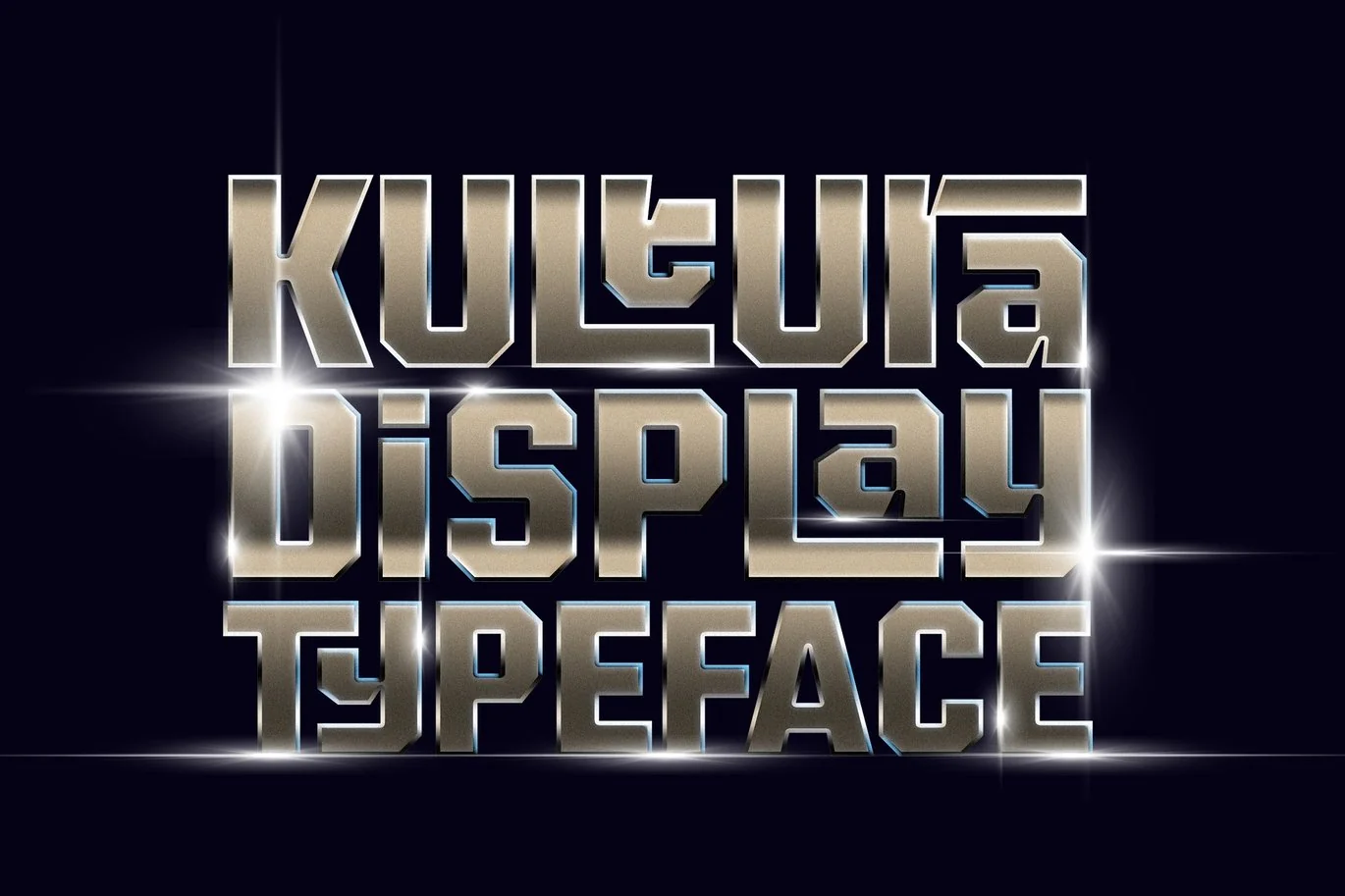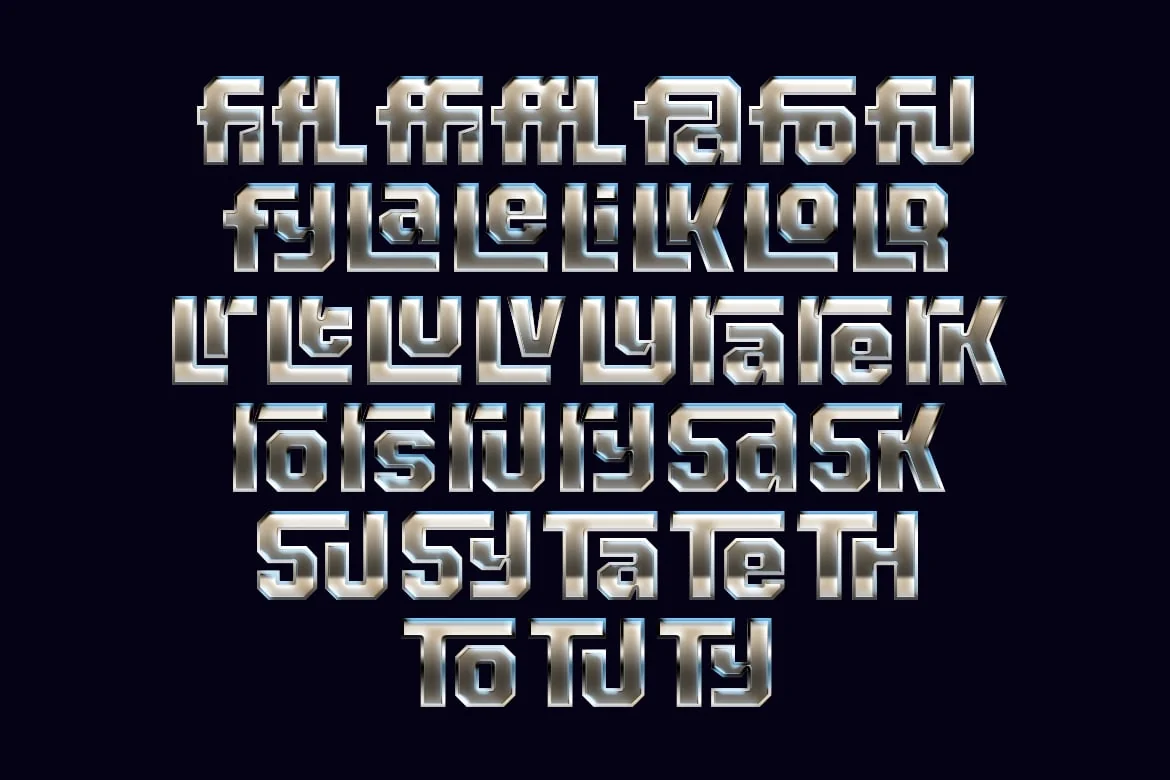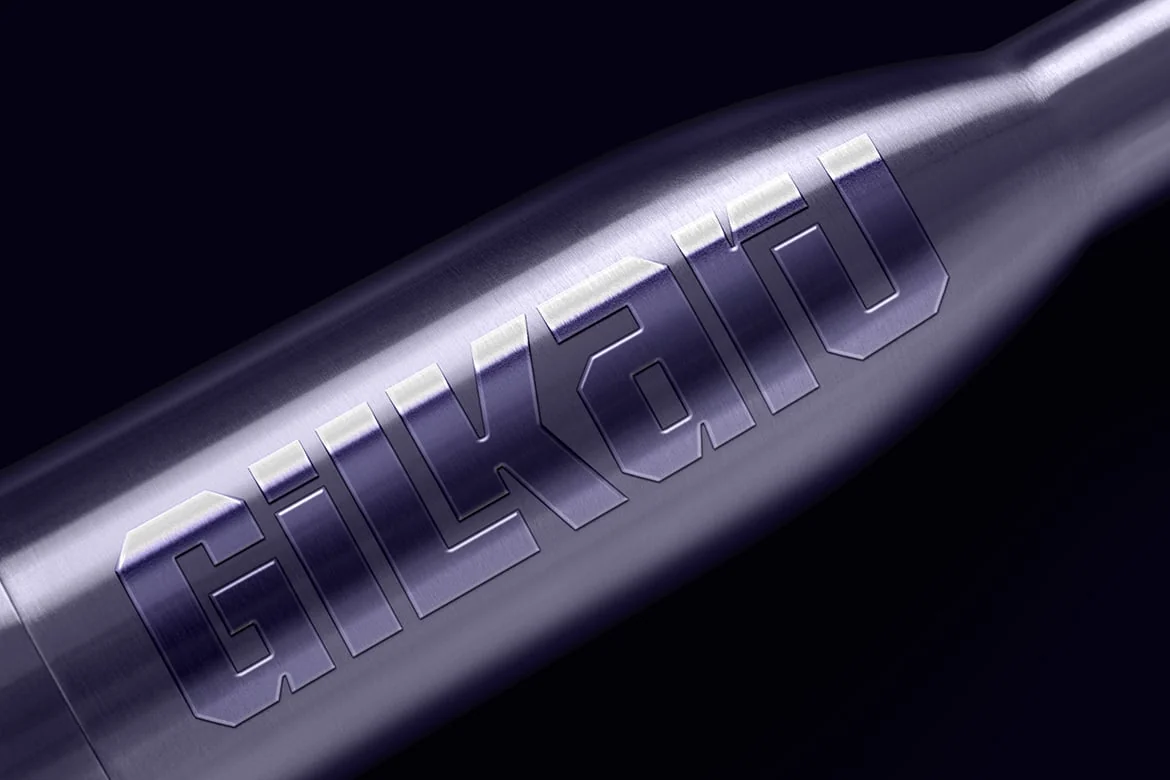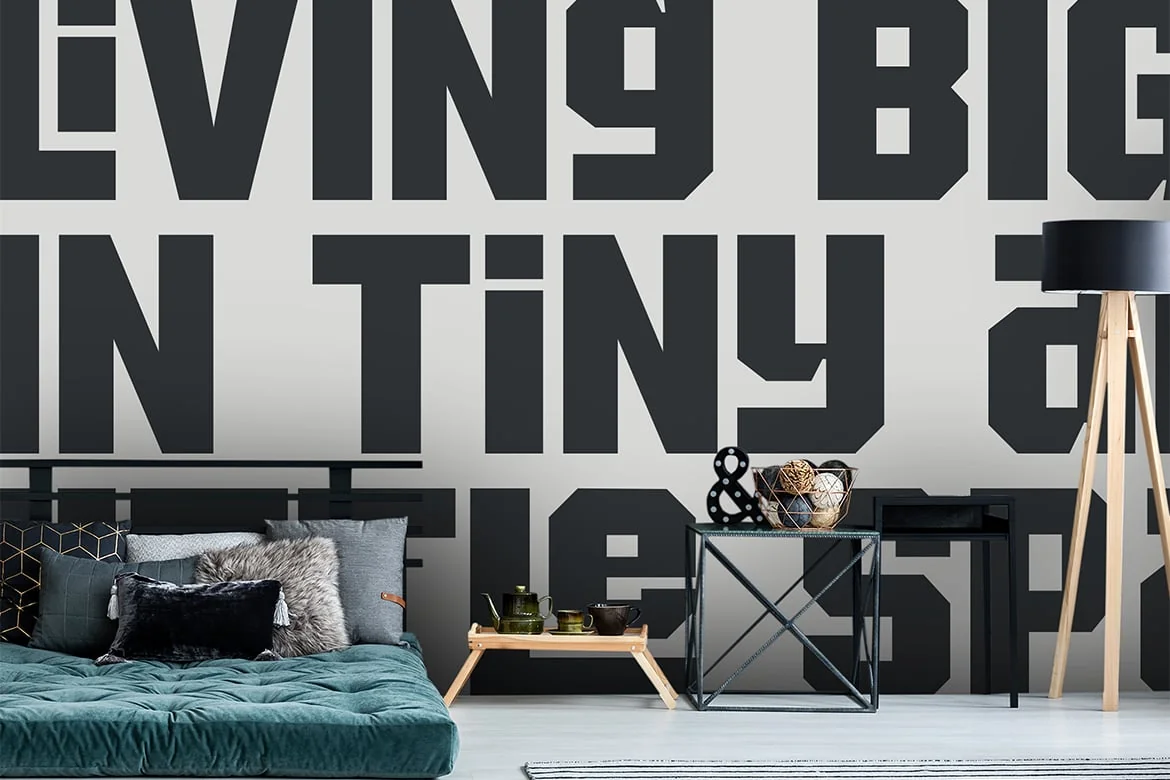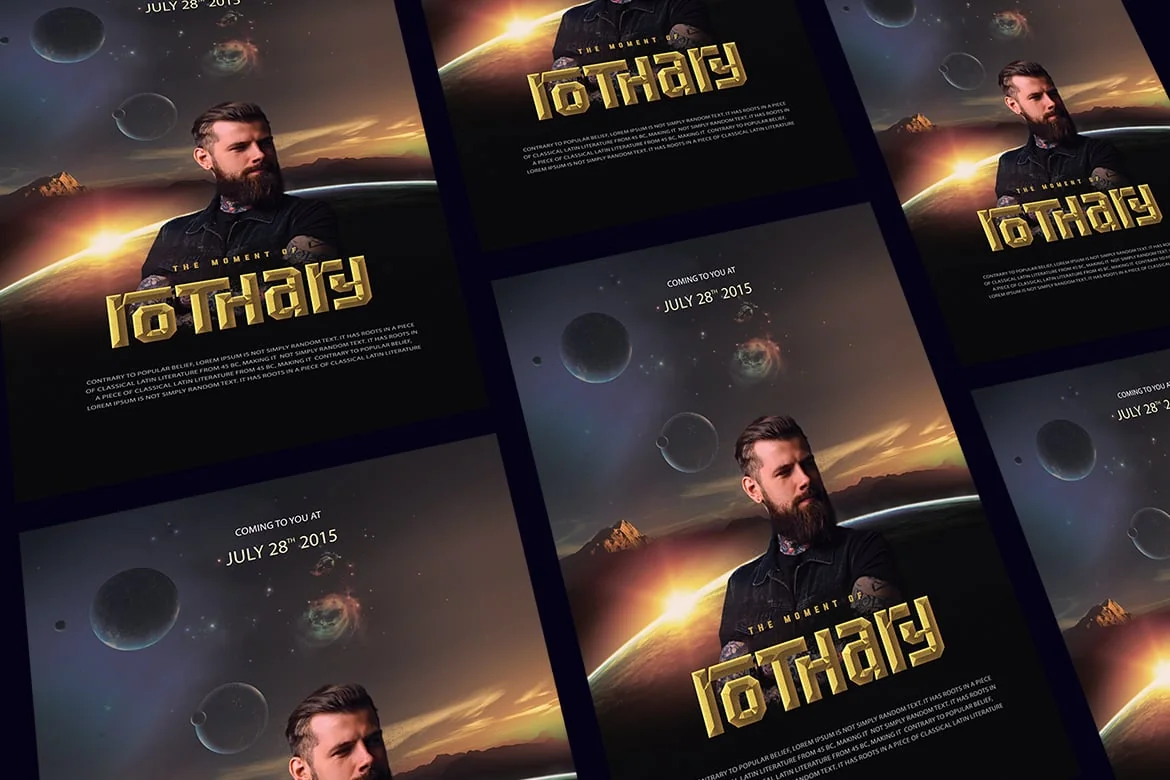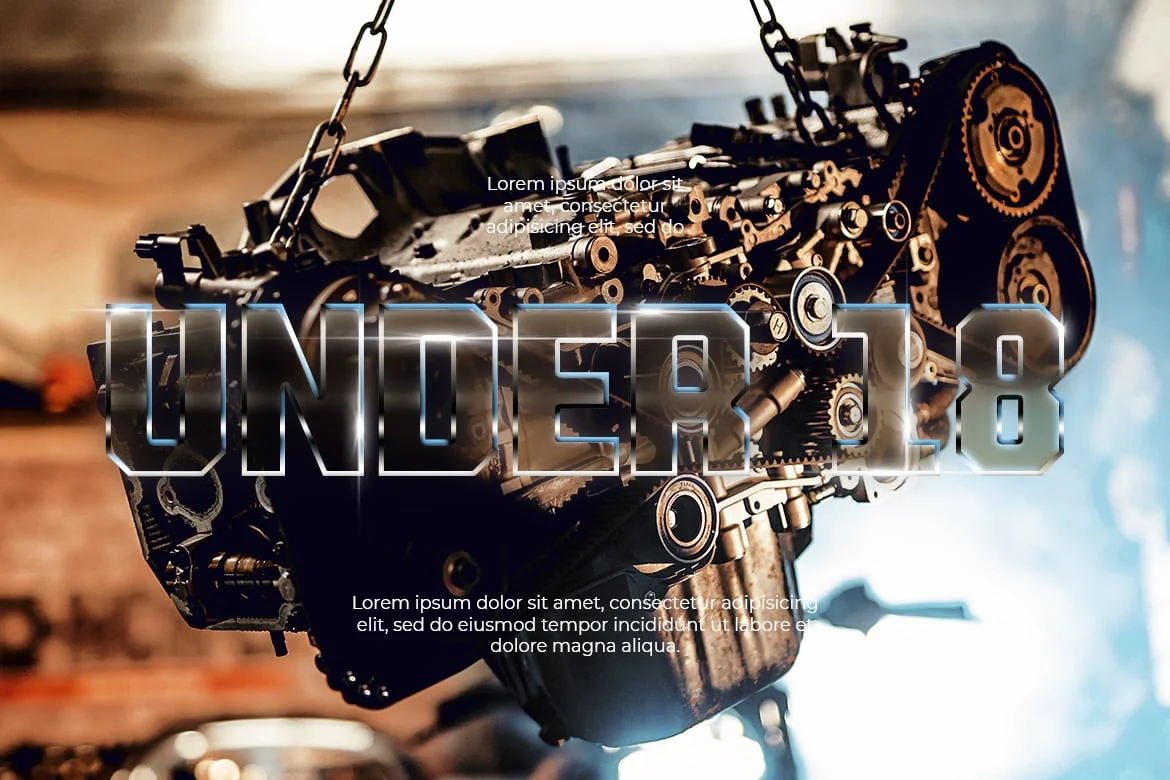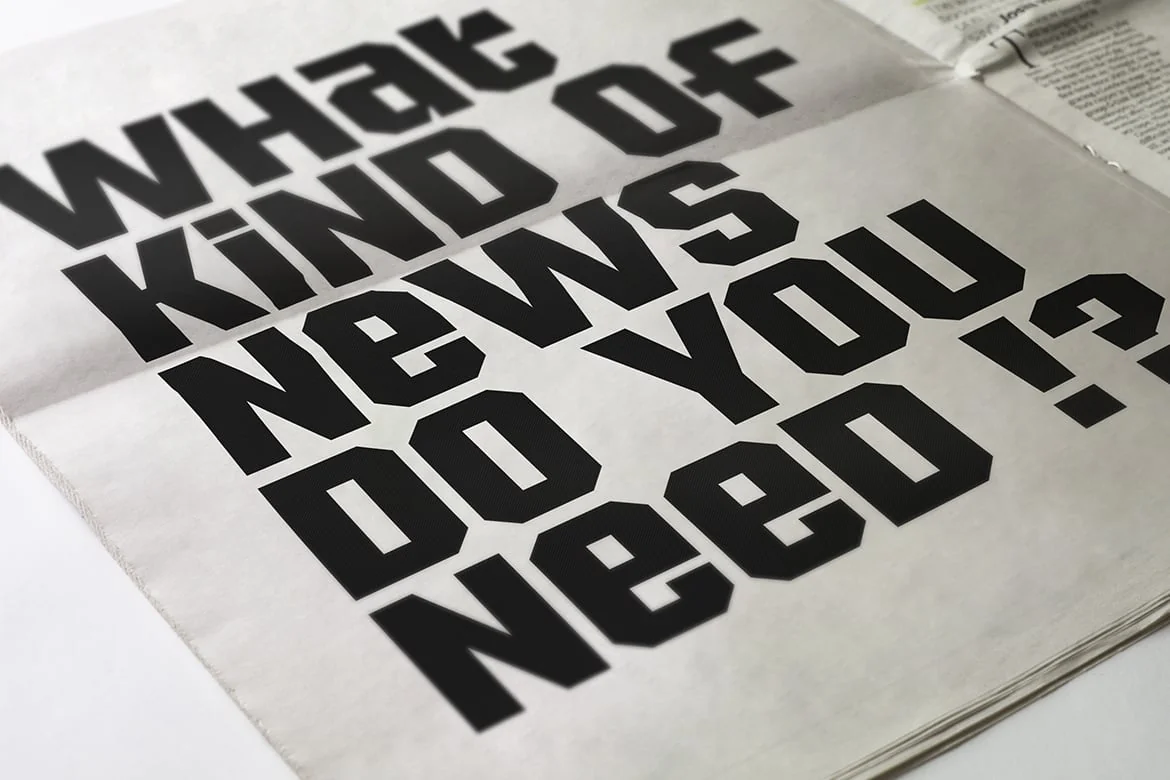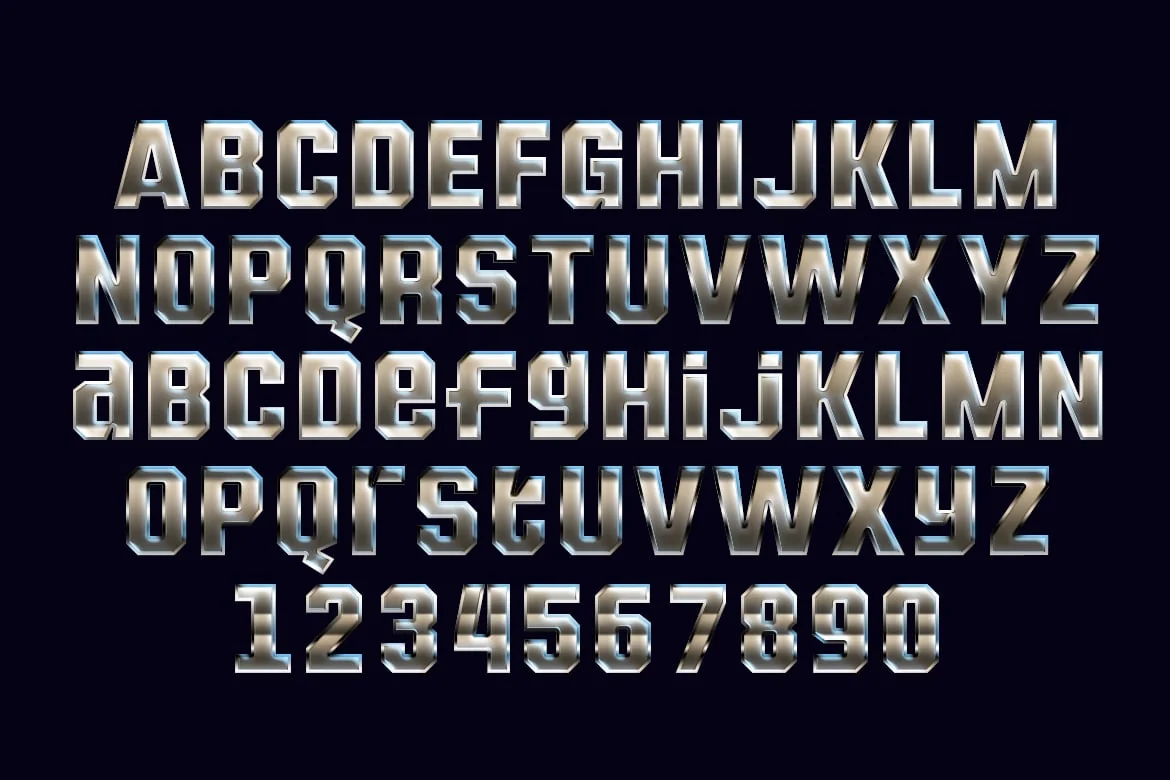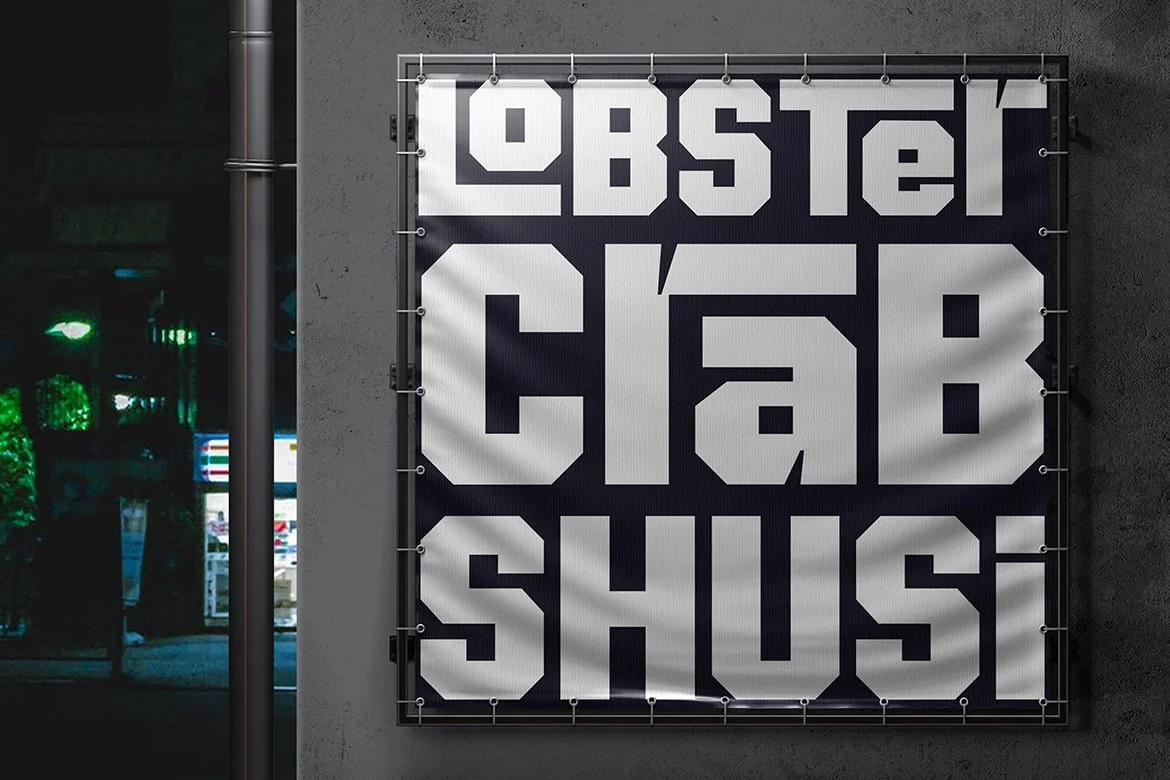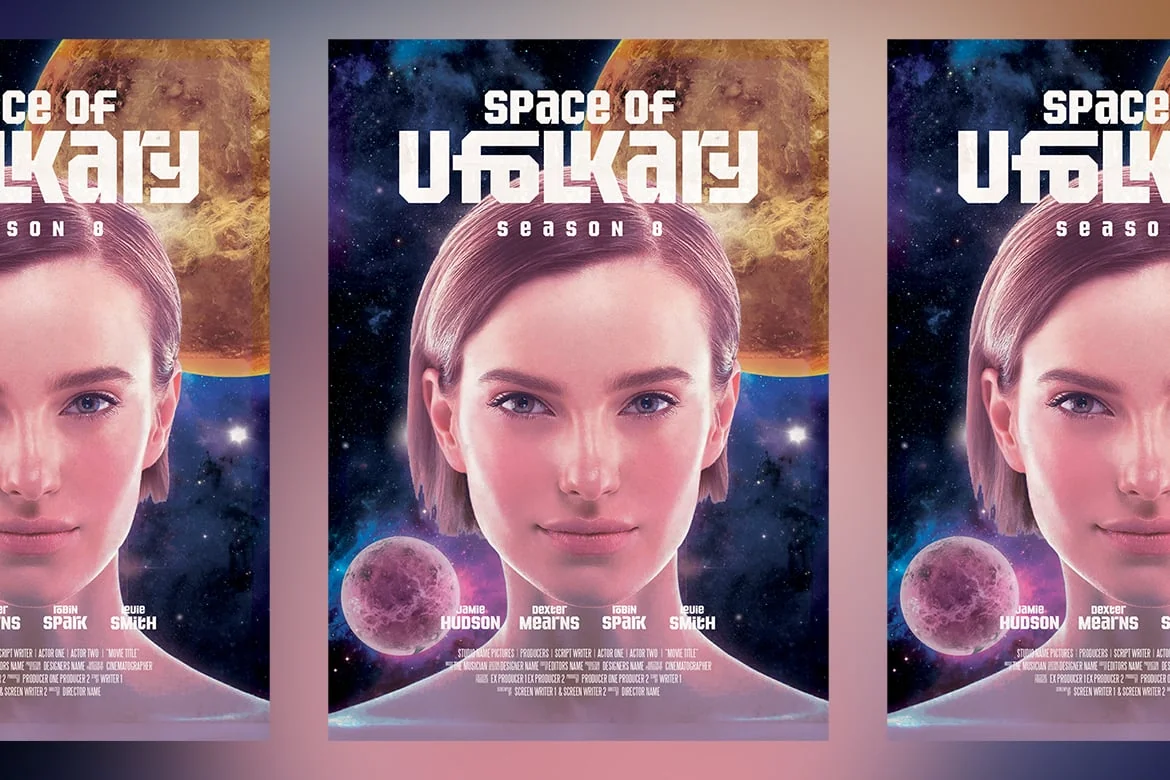
Kultura Groovy Display Typeface
Kultura is a font inspired by the culture of 90s American students who use this font for sports activities, championships, and to use for the identity of a school.
But this time it is packaged more groovy and a little more modern with the use of some exploratory ligatures, blending with each other but still with clear legibility.